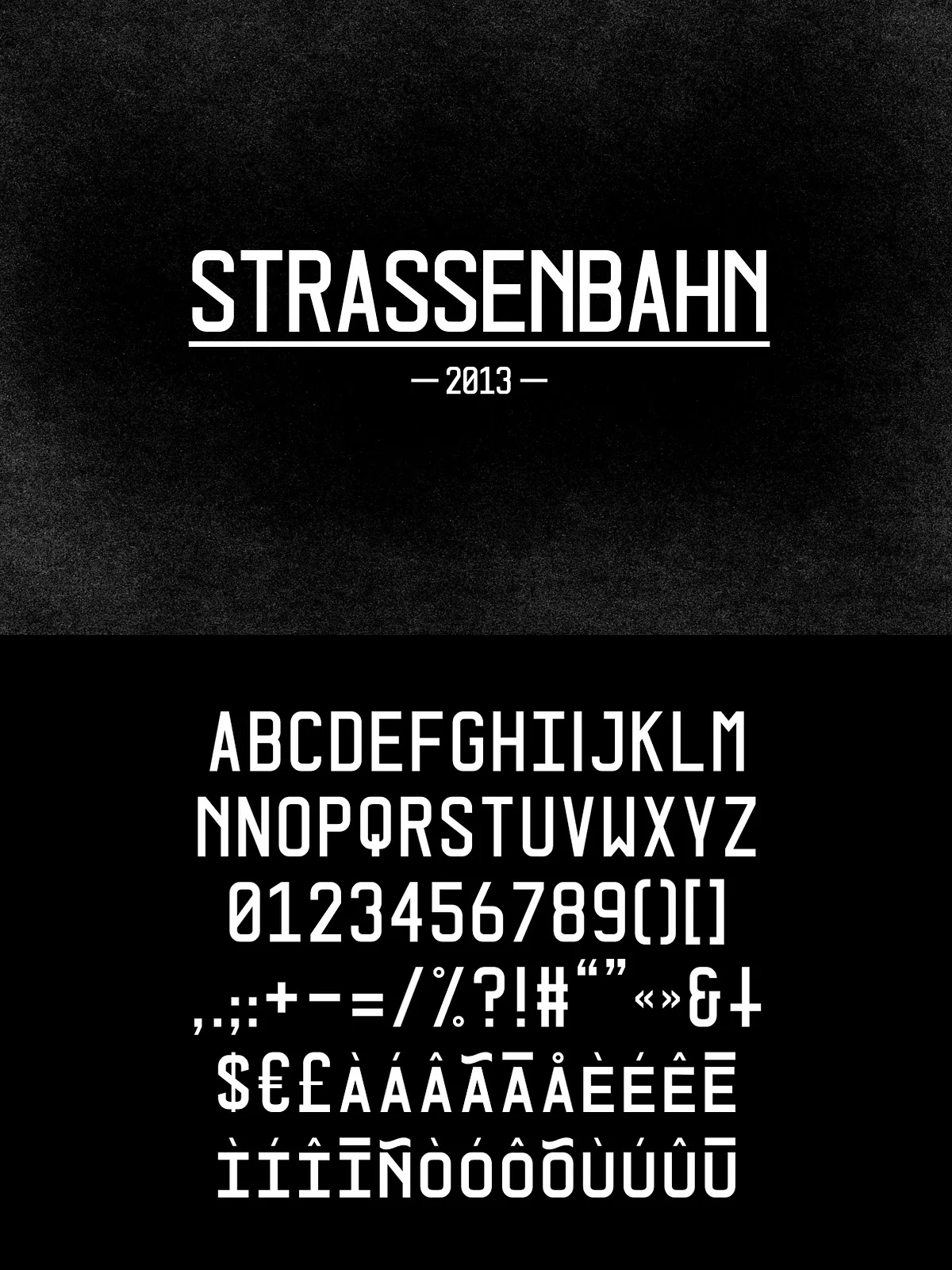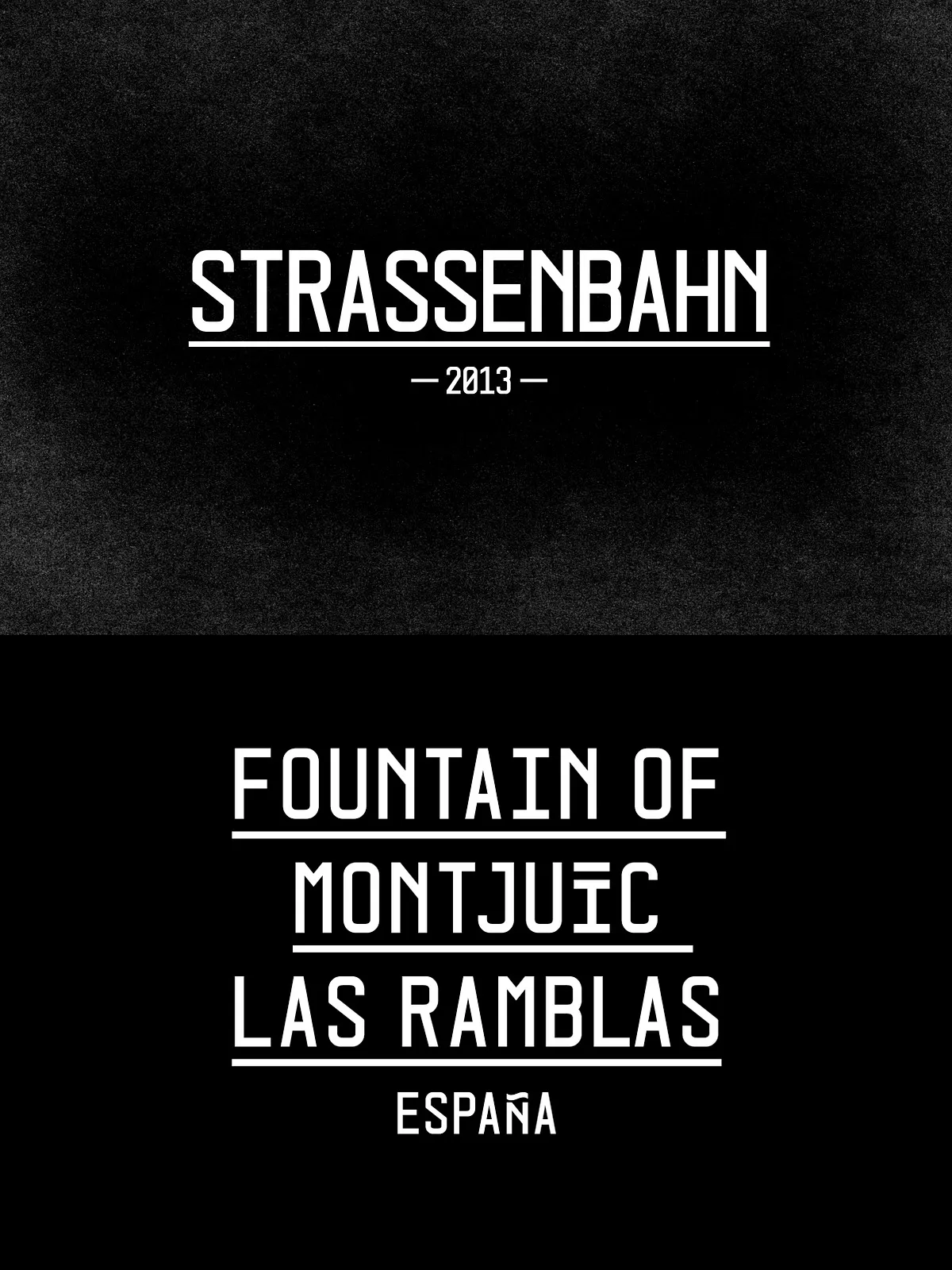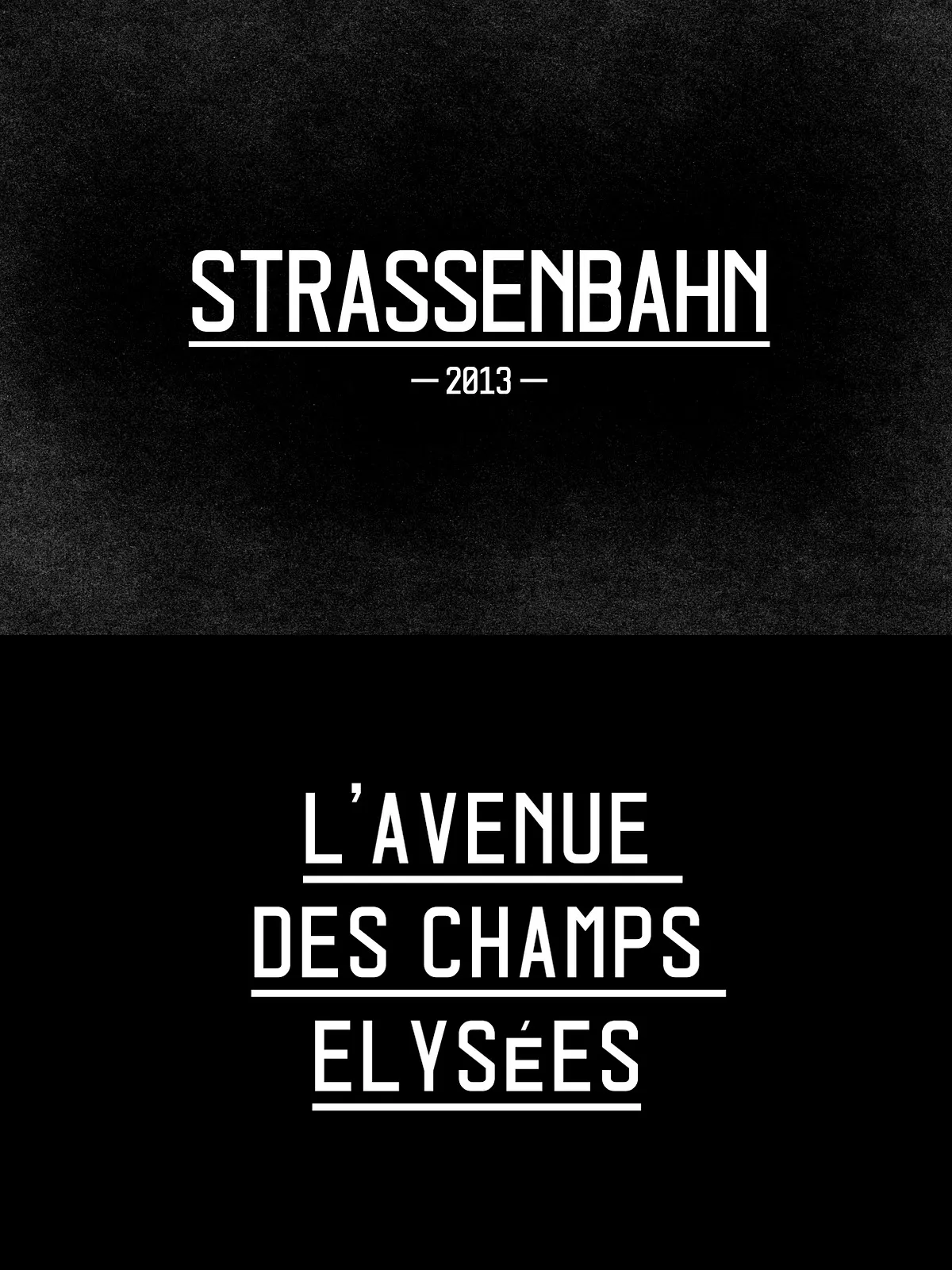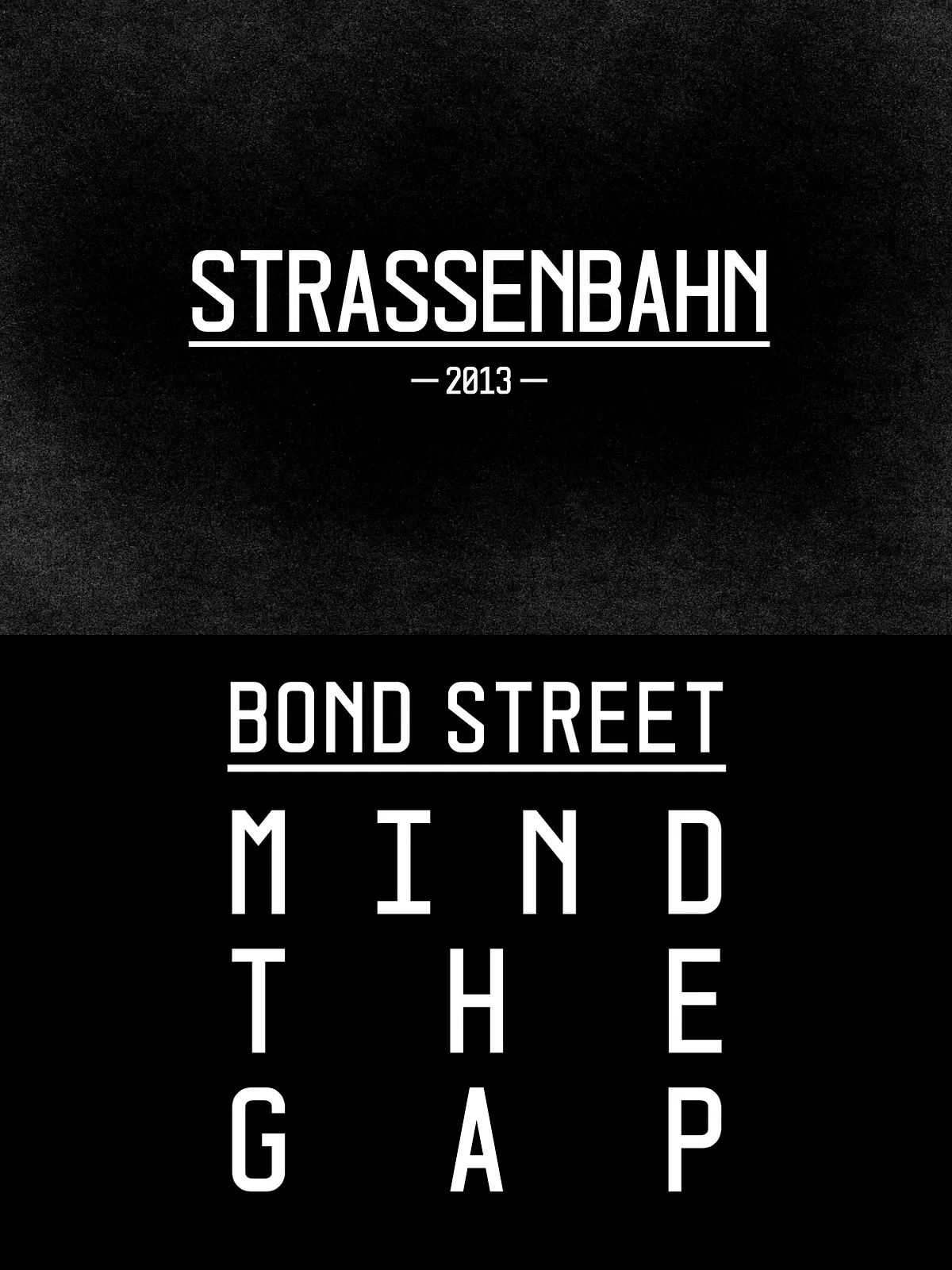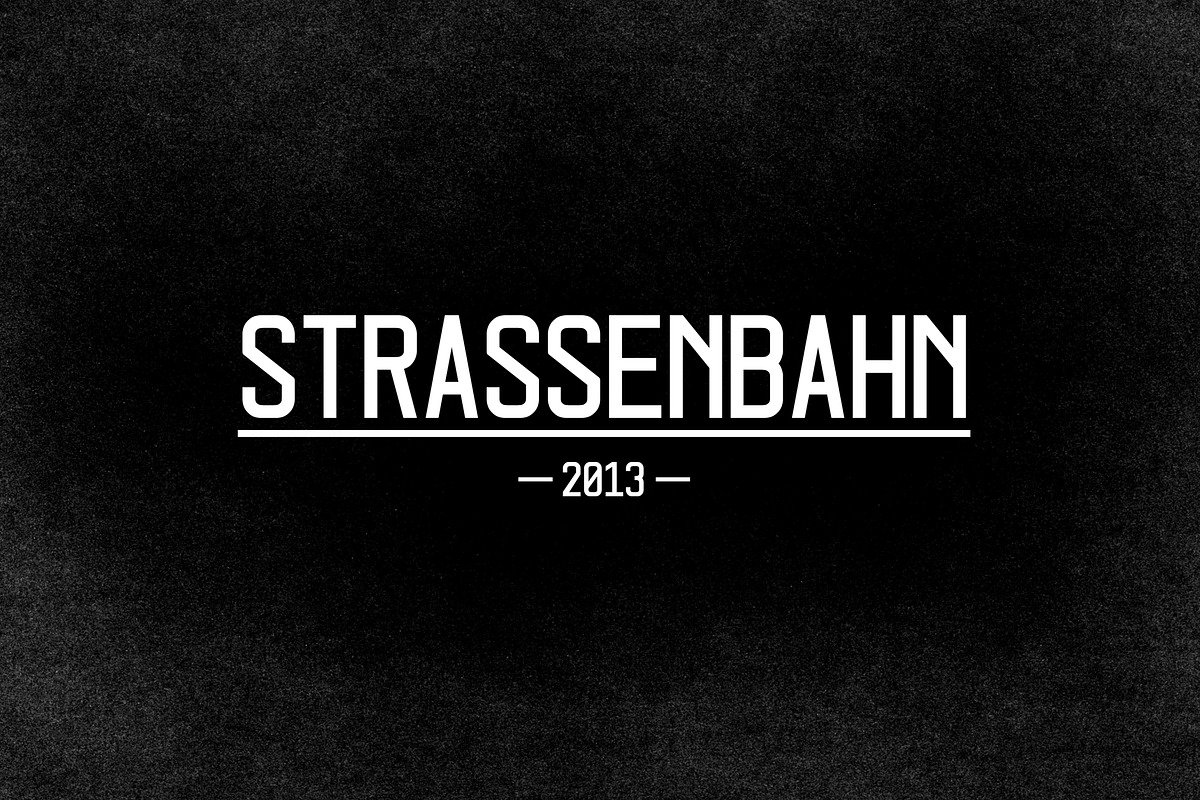
Step into the streets of Vienna with Strassenbahn — a powerful monospaced uppercase typeface designed to mirror the iconic lettering found on historic tramway displays. This isn’t just a font; it’s a visual tribute to public transit, urban design, and the quiet elegance of functional typography.
Every character in Strassenbahn is engineered for clarity and consistency, ensuring that messages pop in high-traffic environments. From subway station names to route indicators, this font was born for visibility, reliability, and style.
Engineered for Impact: The Unique Accent System
What sets Strassenbahn apart is its innovative handling of international accents. Unlike standard fonts where diacritics extend beyond the capital letter height, Strassenbahn reduces all accents to fit precisely within the capital letter’s height.
This intentional design choice delivers a clean, unified visual rhythm — no tall accents breaking the line. The result? A harmonious, compact appearance that maintains typographic unity across multilingual content. Whether you’re designing for German, Spanish, French, or Swedish audiences, Strassenbahn stays elegant and legible.
Perfect for Multilingual Urban Signage
- German – Ideal for city signage with umlauts (ä, ö, ü) perfectly contained within capital height.
- Spanish/Latin American – Accents (ñ) fit flush with uppercase letters, maintaining consistency.
- French – Accents like é or è are shrunk to align seamlessly with the uppercase frame.
- Swedish – Includes å, ä, ö without disrupting the monospaced grid.
Where Strassenbahn Shines: Professional Applications
Signage & Wayfinding Systems
Design airport terminals, transit hubs, public buildings, or museum maps with confidence. Strassenbahn’s clear, bold structure ensures readability from a distance, while its vintage-inspired aesthetic adds a touch of authenticity to directional signage.
Posters & Event Branding
Make your next campaign stand out. Whether promoting a music festival, art exhibit, or city event, Strassenbahn delivers a bold, nostalgic visual vibe. Use it for large format prints where legibility and character are paramount.
Headlines & Editorial Layouts
Give editorial designs, magazine covers, or online article titles a distinctive voice. Strassenbahn’s uppercase-only design and uniform spacing create a strong visual anchor, making headlines impossible to ignore.
Branding for Transit, Culture & Heritage
Perfect for transport companies, urban design firms, cultural institutions, or heritage brands. Strassenbahn helps tell the story of history, mobility, and collective urban experience — all through typography.
Why Strassenbahn Is a Game-Changer in Monospaced Design
While many monospaced fonts prioritize technical uniformity, Strassenbahn blends functionality with soul. It’s not just about equal character width — it’s about purpose, precision, and personality.
It’s the rare font that works equally well in technical systems and expressive projects. In a digital age where design often leans toward minimalism, Strassenbahn stands out by celebrating the craft of physical signage and the identity of city life.